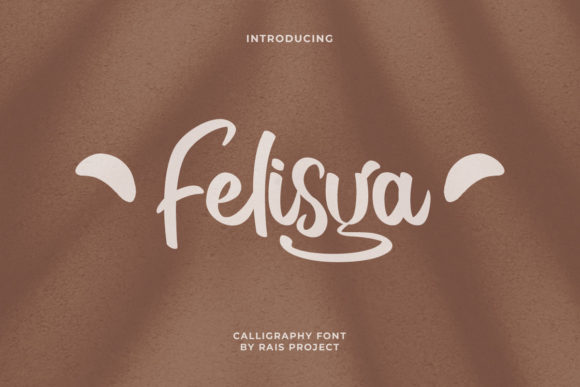
Journey into a world of elegance and charm with Felisya Script Font, the captivating new script font that will transform your designs into masterpieces. Meticulously crafted by RaisProject, this exquisite font exudes an aura of delicate beauty and timeless appeal.
Indulge in the enchanting allure of Felisya Script, a font that speaks to the heart with its graceful curves and fluid lines. Each letter dances across the page, creating a visual symphony that captivates the senses. With its PUA encoding, you'll have effortless access to a treasure trove of glyphs and swashes, empowering you to unleash your creativity and craft truly remarkable designs.
Immerse yourself in the versatile nature of Felisya Script, a font that adapts seamlessly to a multitude of projects. Whether you're designing enchanting wedding invitations, captivating logos, or stunning social media graphics, Felisya Script will elevate your creations to new heights of sophistication. Its charm knows no bounds, making it the ideal choice for everything from heartfelt greeting cards to eye-catching posters.
Unlock the potential of Felisya Script and witness the transformation of your designs. Prepare to be mesmerized as this font weaves its magic, adding a touch of elegance and enchantment to every project. Embrace the beauty of Felisya Script and embark on a creative journey that will leave you spellbound.